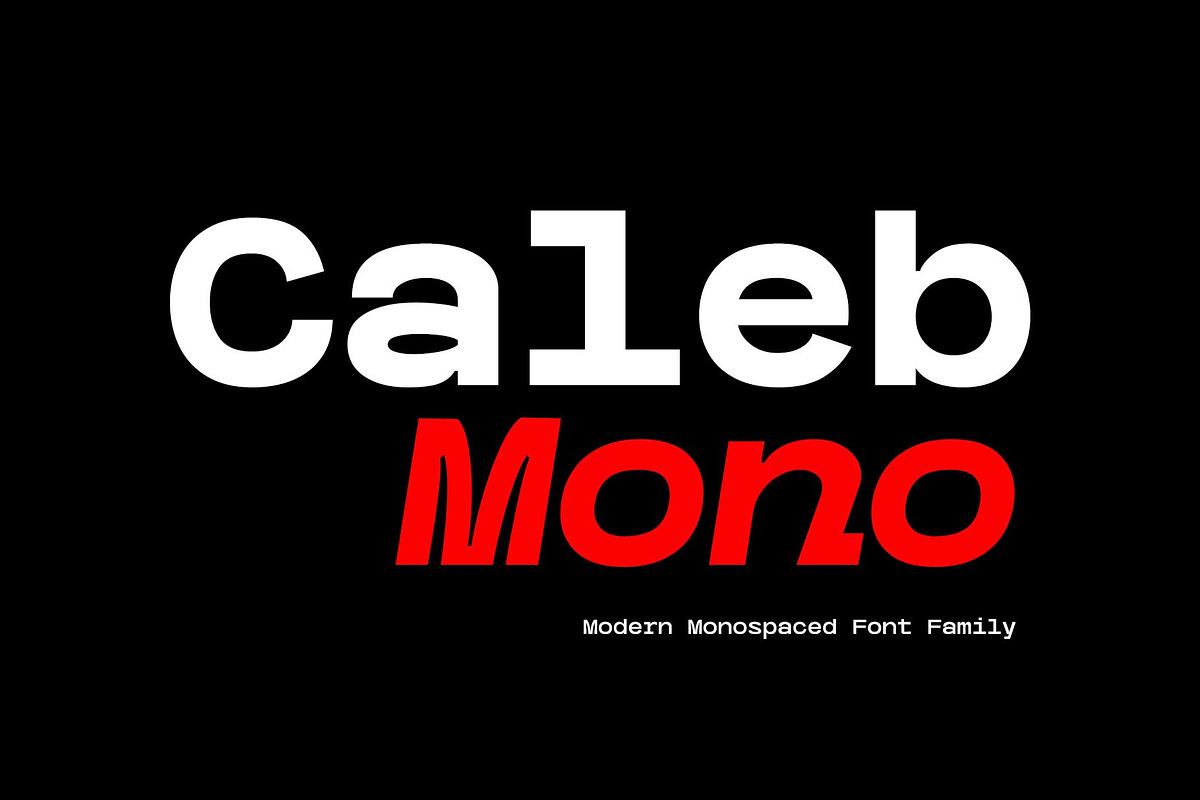
Caleb Mono Font Family Free Download is a modern monospaced typeface designed for precision, clarity, and minimalist aesthetics. With its evenly spaced characters and clean, geometric structure, this font family is ideal for coding interfaces, tech branding, editorial layouts, and minimalist design projects. It brings a sleek, contemporary edge while maintaining the functional integrity of a true mono font.
Whether you're developing a user interface, designing infographics, or building a clean, text-driven layout, Caleb Mono Font Family Free Download offers a professional and polished look. Its multiple weights and consistent spacing ensure readability and visual harmony across different formats.